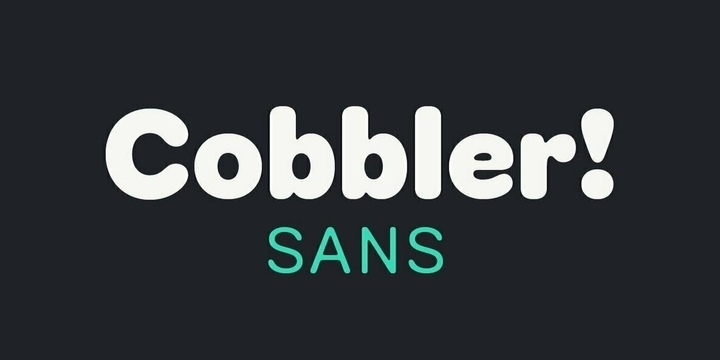
Cobbler Sans Font
The Cobbler Sans Font is a versatile and friendly sans-serif typeface that is perfect for a wide range of creative and professional applications. Its clean, geometric shapes and slightly rounded edges give it a warm and approachable feel, making it an excellent choice for a variety of projects. Imagine it on the logo for a cozy coffee shop, a colorful event poster, or the packaging for a natural food brand. It's also fantastic for creating engaging social media graphics, blog headers, and children's book titles, where its clear and uncluttered style can truly shine. The Cobbler Sans Font brings a sense of modern simplicity and friendly charm to any project, ensuring your designs are both legible and inviting.
What makes this font so exciting is its unique blend of geometric precision and soft, rounded terminals. This combination creates a typeface that feels both professional and casual, allowing it to adapt to various moods and themes. Unlike more rigid sans-serifs, Cobbler Sans has a humanistic touch that makes it feel less sterile and more engaging. This isn't just a font; it’s a design tool that conveys a sense of friendliness, reliability, and modern style. The consistent proportions and excellent legibility of the Cobbler Sans Font make it a powerful tool for designers who need a typeface that works hard without compromising on personality.
The Cobbler Sans Font family is designed with versatility and functionality in mind. It comes in a range of weights, including Regular, Medium, and Bold, allowing you to create a clear visual hierarchy in your designs. Each weight maintains the font's distinctive rounded style, ensuring a consistent and professional look across all your materials. This comprehensive family provides the tools you need to use the font effectively for both dramatic headlines and detailed body text, making it a valuable addition to any designer's toolkit. The different weights of the Cobbler Sans Font ensure that your message is always clear and professionally presented, no matter the medium.